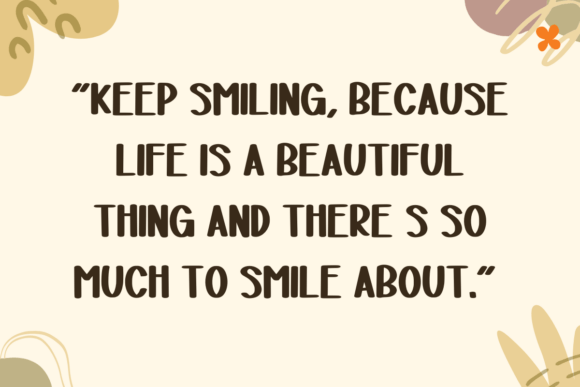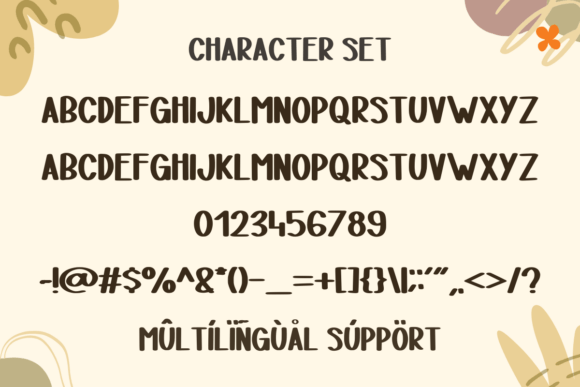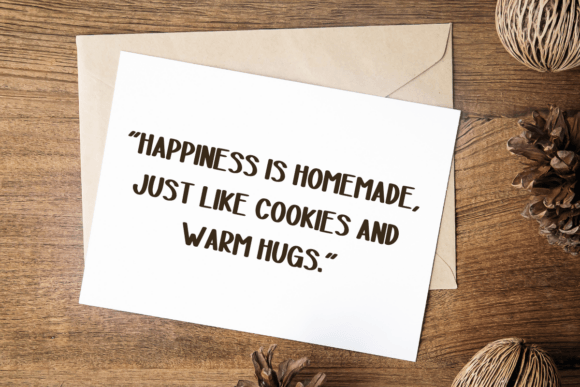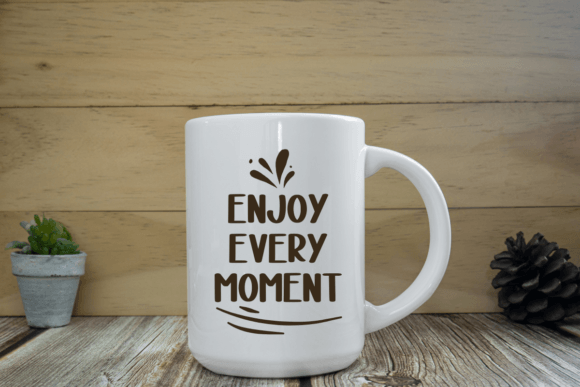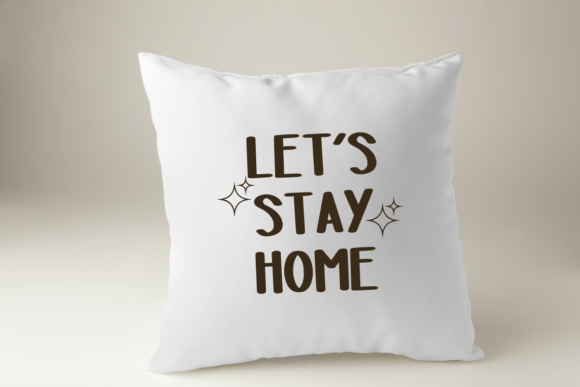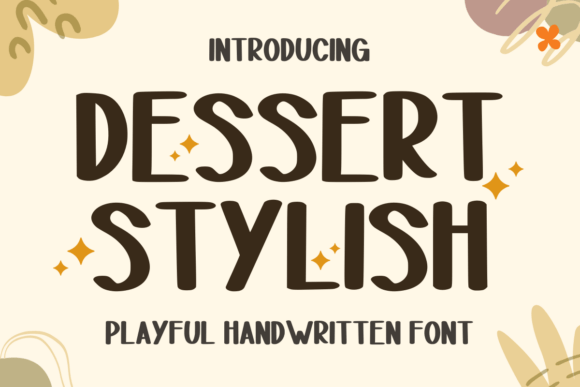
Dessert Stylish Font: The Sweetest Addition to Your Design Collection
Are you tired of using the same old fonts in your designs? Look no further than Dessert Stylish Font, a playful handwritten typeface that’s as sweet as its name suggests! With its bold, quirky letters and warm charm, this font is perfect for adding a delightful touch of fun and creativity to your designs.
What is Dessert Stylish Font?
Dessert Stylish Font is a unique and eye-catching typeface that’s perfect for designers and crafters looking to add a personal touch to their work. This font features bold, playful letters with a warm and inviting charm that’s sure to capture the attention of your audience. Whether you’re working on a branding project, packaging design, or social media graphics, Dessert Stylish Font is the perfect choice.
Key Features of Dessert Stylish Font
- Playful Handwritten Style: Dessert Stylish Font features a playful handwritten style that’s perfect for adding a personal touch to your designs.
- Bold and Quirky Letters: The font’s bold and quirky letters are sure to capture the attention of your audience and add a touch of fun to your designs.
- Warm and Inviting Charm: The font’s warm and inviting charm makes it perfect for designs that require a friendly and approachable tone.
- Multipurpose: Dessert Stylish Font is perfect for a variety of design projects, including branding, packaging, invitations, social media graphics, and more.
Uses for Dessert Stylish Font
Dessert Stylish Font is a versatile typeface that can be used for a wide range of design projects. Here are some ideas to get you started:
- Branding: Use Dessert Stylish Font to create a unique and memorable brand identity that’s sure to stand out.
- Packaging Design: Add a touch of fun and creativity to your packaging designs with Dessert Stylish Font.
- Invitations: Create beautiful and eye-catching invitations for special occasions, such as weddings, birthday parties, and more.
- Social Media Graphics: Use Dessert Stylish Font to create engaging and shareable social media graphics that will capture the attention of your audience.
Benefits of Using Dessert Stylish Font
There are many benefits to using Dessert Stylish Font in your designs. Here are a few:
- Adds a Touch of Fun and Creativity: Dessert Stylish Font is the perfect way to add a touch of fun and creativity to your designs.
- Unique and Eye-Catching: The font’s bold and quirky letters make it a unique and eye-catching addition to any design.
- Warm and Inviting: The font’s warm and inviting charm makes it perfect for designs that require a friendly and approachable tone.
- Multipurpose: Dessert Stylish Font can be used for a wide range of design projects, making it a great addition to any design collection.
Tips for Using Dessert Stylish Font
Here are a few tips for using Dessert Stylish Font in your designs:
- Use it for Headings and Titles: Dessert Stylish Font is perfect for headings and titles, where its bold and quirky letters can really shine.
- Pair it with Other Fonts: Try pairing Dessert Stylish Font with other fonts to create a unique and interesting contrast.
Dessert Stylish Font is a playful handwritten typeface that’s perfect for designers and crafters looking to add a touch of fun and creativity to their work. With its bold, quirky letters and warm charm, this font is sure to capture the attention of your audience and add a delightful touch to your designs. Whether you’re working on a branding project, packaging design, or social media graphics, Dessert Stylish Font is the perfect choice.